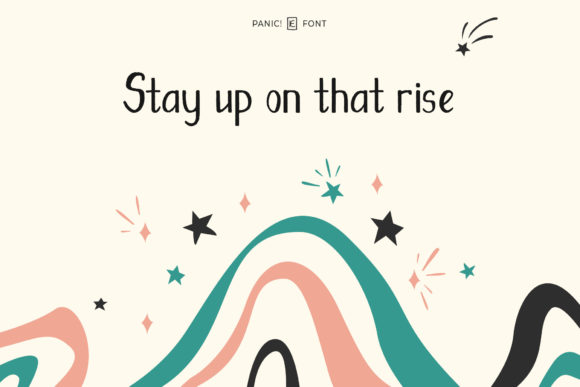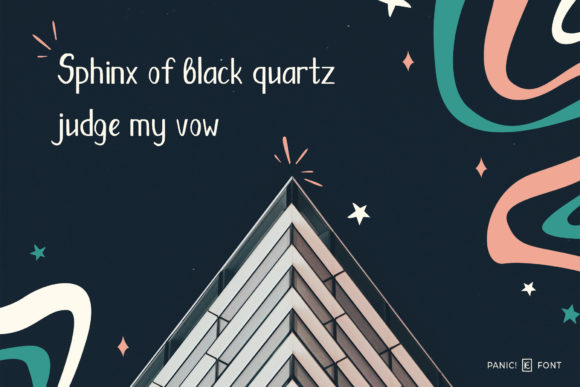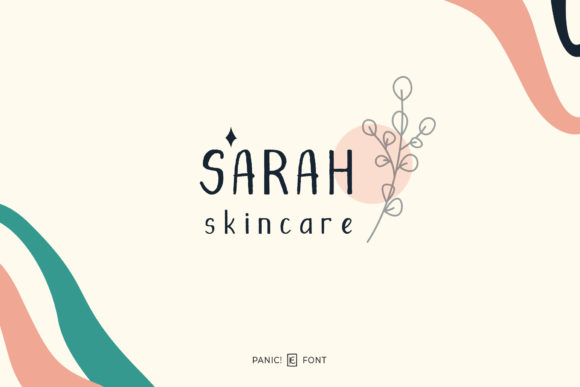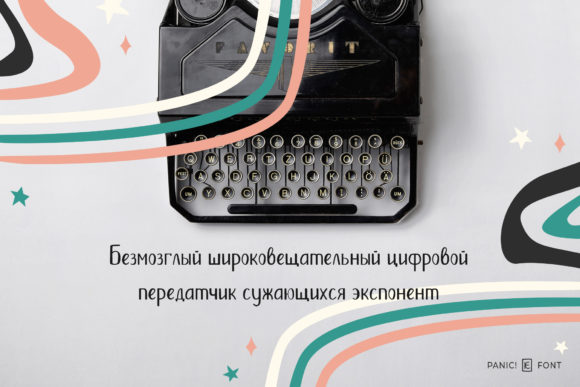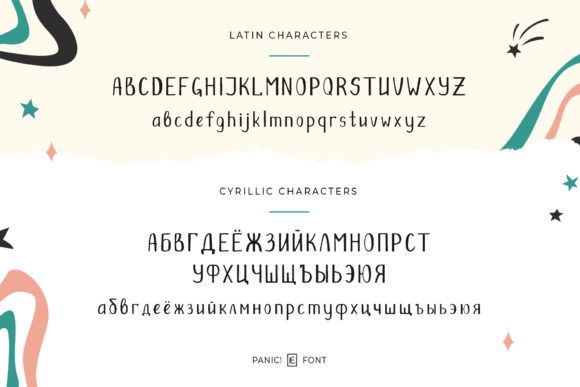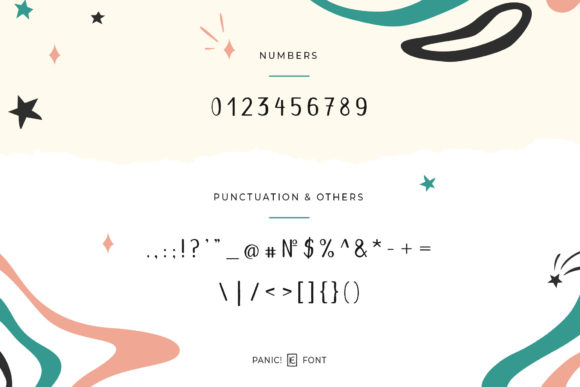
Introduction to Panic! Font
Panic.
is a simple and squared lettered display font No matter the topic, this font will be an incredibly asset to your fontsโ library, as it has the potential to elevate any creation.
Key Features of Panic! Font